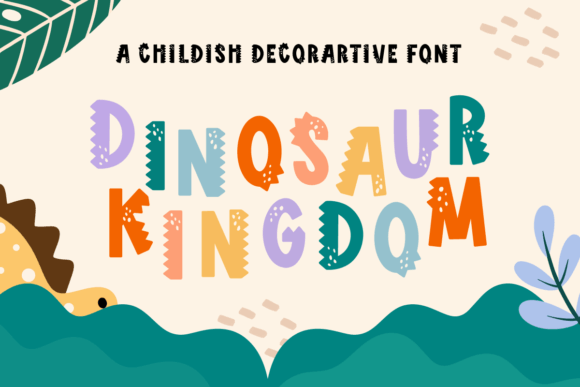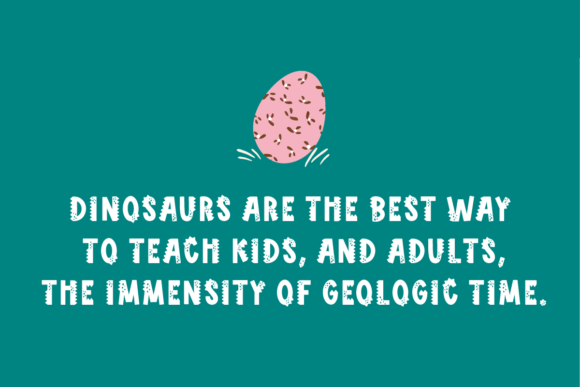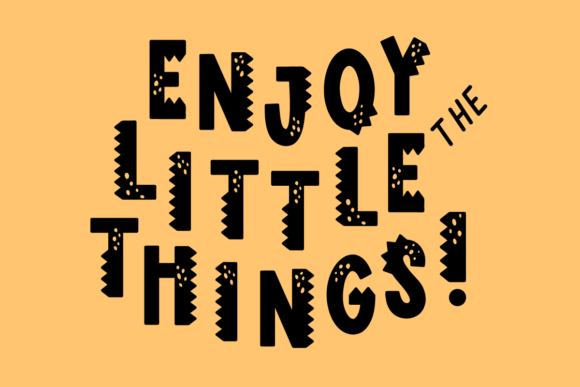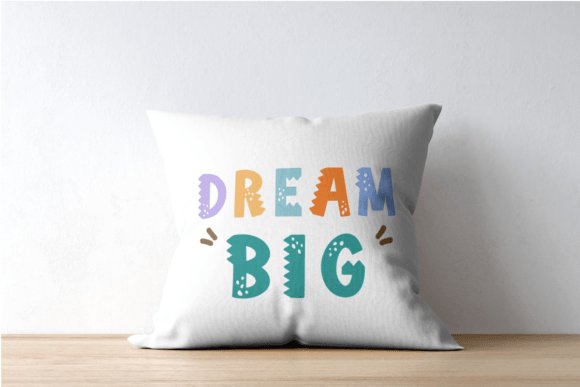
Dinosaur Kingdom Font: A Playful Decorative Font for Cricut & DIY!
About the Dinosaur Kingdom Font
Unleash your creativity with Dinosaur Kingdom Font, a versatile font perfect for a wide range of applications. Dinosaur Kingdom is a playful decorative font with dinosaur style. Perfect for lovely projects, shirts, lively designs, invitation cards, mugs, stickers, playful quotes, creating posters, logos, greeting cards, packaging, decorating the illustration and so much more!
Dinosaur Kingdom’s playful energy makes it ideal for children’s books, branding for toy companies, or packaging for playful products. It excels in headlines, short text blocks on posters, and logo design where its unique character can shine. However, its decorative nature makes it unsuitable for body text or UI elements requiring high readability.
Consider pairing Dinosaur Kingdom with a clean sans-serif like Open Sans for contrast and improved readability in supporting text. For a more whimsical feel, a rounded script font such as Pacifico could work well. Conversely, a geometric sans-serif like Futura can provide a modern, sophisticated counterpoint, emphasizing the font’s playful yet intentional design.
The overall personality is best described as bold and friendly, with a touch of retro charm. This makes it perfect for projects targeting a younger audience or needing a fun, memorable visual identity.
Dinosaur Kingdom Font Usage Examples
Dinosaur Kingdom Font Example